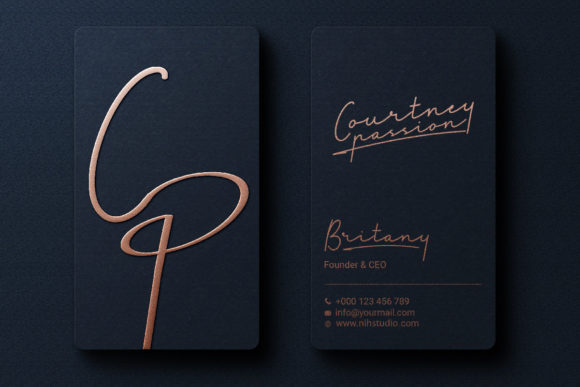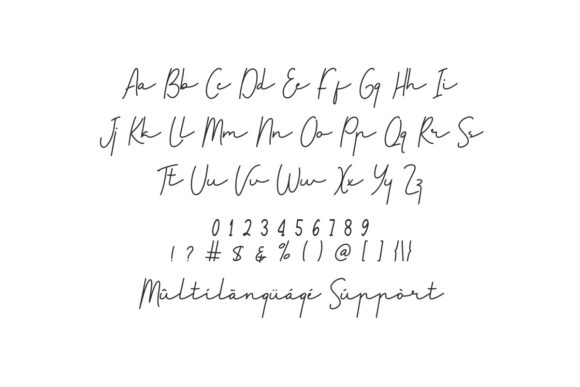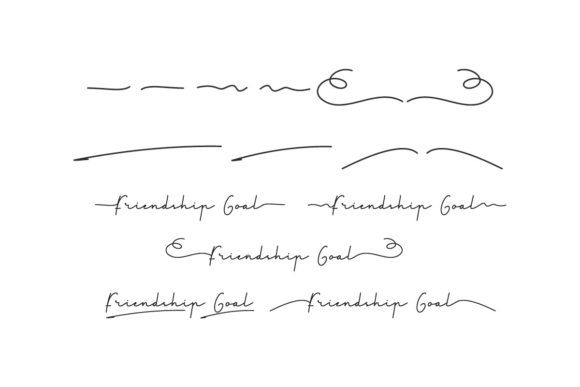
Introduction to Friendship Goal Font
Remember that moment when you’re working on a creative project and you need the perfect font to bring your design to life? You’ve searched high and low, scrolling through design resources, and finally, you stumble upon that one special font that makes everything click. For designers, finding the right font can be a game-changer, and today, we’re excited to introduce you to the lovely Friendship Goal Font.
With its unique, handwritten style and beautiful touches, Friendship Goal Font is the perfect choice for creating eye-catching logos, branding, and quotes. Whether you’re working on a personal project or a client’s design, this font is sure to make your design stand out. And the best part? It’s available for free download, making it an accessible and valuable resource for designers of all levels.
Key Features of Friendship Goal Font
- High-quality design resource for creative projects, suitable for various applications such as social media posts, quotes, and graphics.
- Unique characteristics: cursive, handwritten, and script styles, offering a wide range of creative possibilities.
- Perfect for designers seeking a high-quality, free design resource to elevate their creative projects and express their friendship goals.
Honest Review: Friendship Goal Font
I recently had the chance to work with the Friendship Goal Font, and I must say it’s been an interesting experience. As a designer, I always appreciate a good free download, and this font fits the bill.
What works well: ✨ The Friendship Goal Font is incredibly versatile, making it perfect for a wide range of creative projects. The high quality of the font is also noticeable, especially when using it for digital designs with transparent backgrounds.
- Perfect for creating eye-catching headlines and titles
- Works well for designs that require a touch of whimsy and playfulness
- Easy to customize and use in various design software
However, I did encounter a few limitations: ⚠️ The font can be quite busy at larger sizes, which can make it difficult to read in certain contexts. Additionally, the font’s design may not be suitable for all types of creative projects.
Overall, I think the Friendship Goal Font is a great addition to any designer’s toolkit. While it may have some limitations, its high quality and versatility make it a great resource for any creative project.
The Friendship Goal Font is a unique and stylish design resource ideal for creative projects. With its transparent background, it’s perfect for adding a touch of elegance to any design.
To get the most out of the Friendship Goal Font, use it in conjunction with other design elements, such as images and graphics. You can also experiment with different font sizes and colors to create a unique look.
The Friendship Goal Font is ideal for use in social media graphics, presentations, and blog posts. You can also use it to create custom invitations, flyers, and brochures.